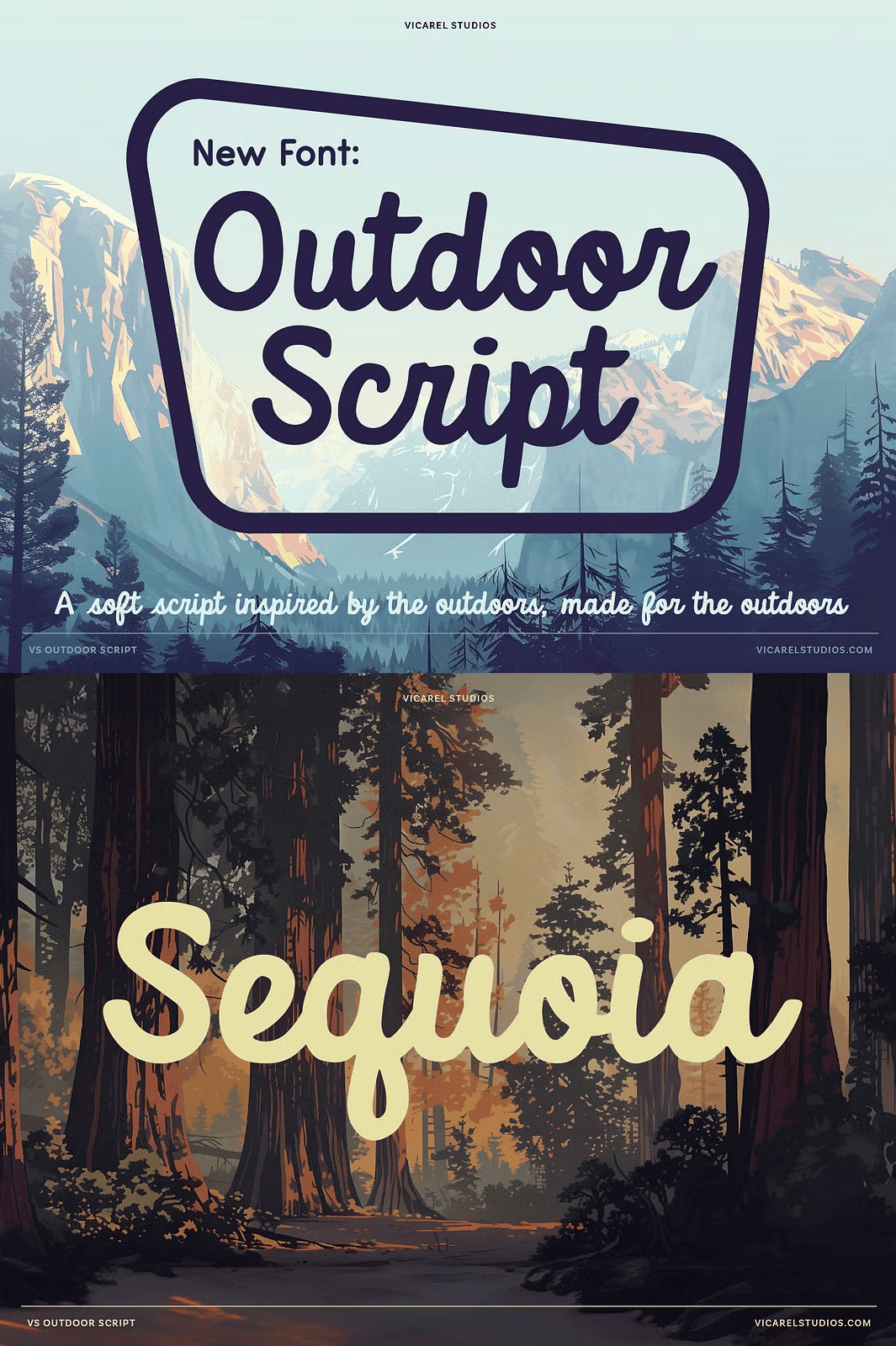
Craft Your Next Masterpiece with Authentic Outdoor Craftsmanship
Immerse yourself in the rugged beauty of the American wilderness with **VS Outdoor Script**—a meticulously designed nostalgia-driven script font inspired by the original National Forest Service logotypes found on trailhead signs across the U.S. This isn’t just another decorative font; it’s a tribute to the raw charm of hand-crafted signage, the quiet majesty of mountain roads, and the unforgettable memories of family hikes under open skies.
Every stroke in this hand-drawn typeface echoes the natural imperfections and organic flow of real-world signage, giving your designs an instantly authentic, grounded feel. Whether you’re building a brand identity, crafting event posters, or designing apparel for outdoor lovers, **VS Outdoor Script** brings genuine warmth and character to your work.
Experience the Power of Natural Imperfections in Every Character
VS Outdoor Script thrives on imperfection—because real hand-lettering never looks perfectly symmetrical. This font features:
– **Soft, rounded letterforms** with slight variations to mimic hand-drawn authenticity
– **Multiple ligatures** (including common combinations like “oo”, “ll”, “tt”) to enhance flow and natural rhythm
– **Extended baseline adjustments** for seamless integration in text layouts
Each character has been carefully designed with subtle asymmetries, varying stroke weights, and intentional inconsistencies—just like the original hand-lettered signs found in national parks and forest service offices. This attention to detail ensures your design feels alive, organic, and deeply connected to its inspiration.
Designed for Real-World Creative Applications
This vintage script font is built to serve more than just aesthetic purposes—it’s engineered to inspire meaningful creative expression across multiple industries and use cases.
Perfect for Outdoor Branding and Logo Design
Build a bold, memorable identity for brands rooted in nature and adventure. VS Outdoor Script adds instant credibility to outdoor gear companies, eco-conscious retailers, hiking tour operators, or travel agencies focusing on national parks. Its rustic elegance conveys trust, authenticity, and a genuine love for the outdoors—all without saying a word.
Stand Out on Apparel and Accessories
Turn t-shirts, hats, tote bags, or coffee mugs into wearable stories. The soft, flowing curves of VS Outdoor Script look incredible when stitched or printed on fabric. It’s ideal for brands promoting hiking culture, camping trips, or a laid-back lifestyle. Let your merchandise speak volumes about your connection to the wild.
Elevate Packaging with Organic Authenticity
For brands that value natural ingredients, sustainability, or earthy craftsmanship, VS Outdoor Script is a must-have. Use it to label your organic skincare products, artisanal coffee blends, or handcrafted candles. The font’s hand-drawn flair tells a story of care, tradition, and connection to nature—adding emotional depth to your packaging.
Revitalize Poster and Event Design
Whether promoting a conservation event, a mountain festival, or a summer hiking expedition, this national park-inspired font instantly captures the mood and tone of the outdoors. It’s a perfect match for vintage-style posters, travel guides, and promotional materials that aim to inspire adventure and wanderlust.